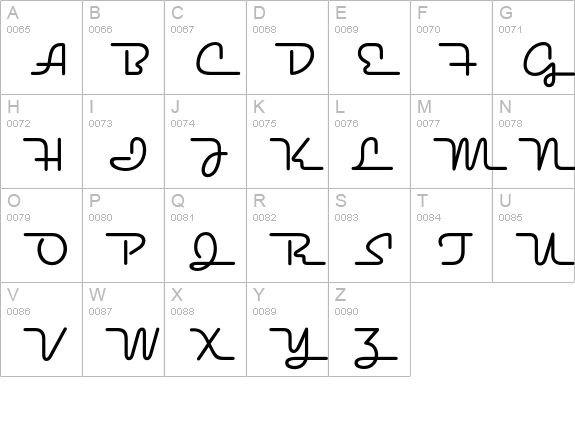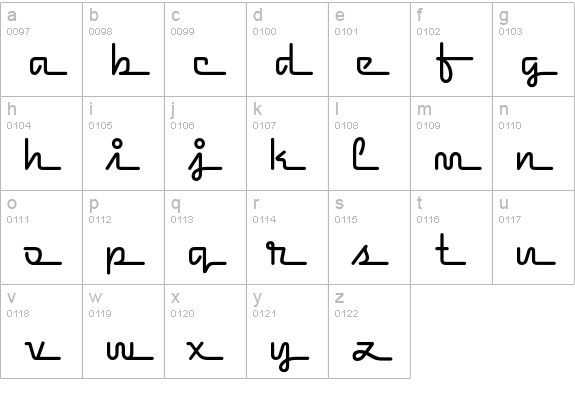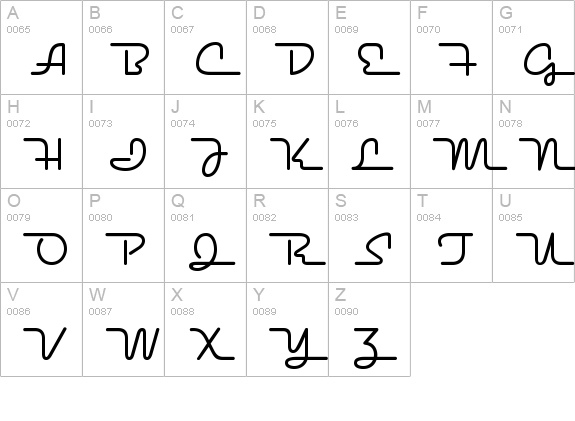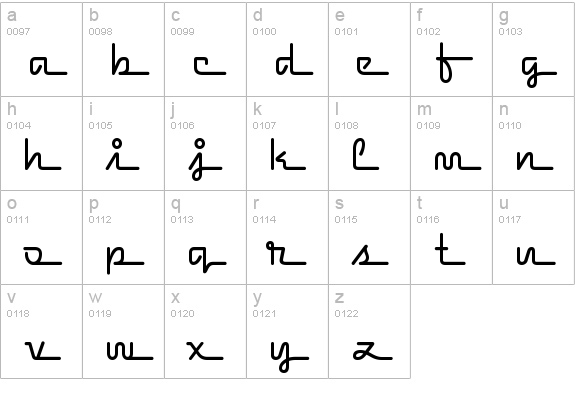
NeonStream font is a modern and stylish typeface that exudes a vibrant and energetic vibe, perfect for adding a pop of excitement to your designs. With its sleek lines and dynamic curves, this font captures the essence of neon lights, making it a great choice for projects that aim to stand out from the crowd. The NeonStream font is not only visually striking but also versatile, making it suitable for a wide range of design projects, from posters to logos to social media graphics. Its bold and eye-catching appearance ensures that your message will be noticed and remembered. Best of all, NeonStream font is available for free download at FontsMarket.com, allowing you to easily incorporate this stunning typeface into your projects without breaking the bank. Whether you're a professional designer looking to add a modern touch to your work or a hobbyist seeking to elevate your creations, NeonStream font is sure to impress with its bold and contemporary style.